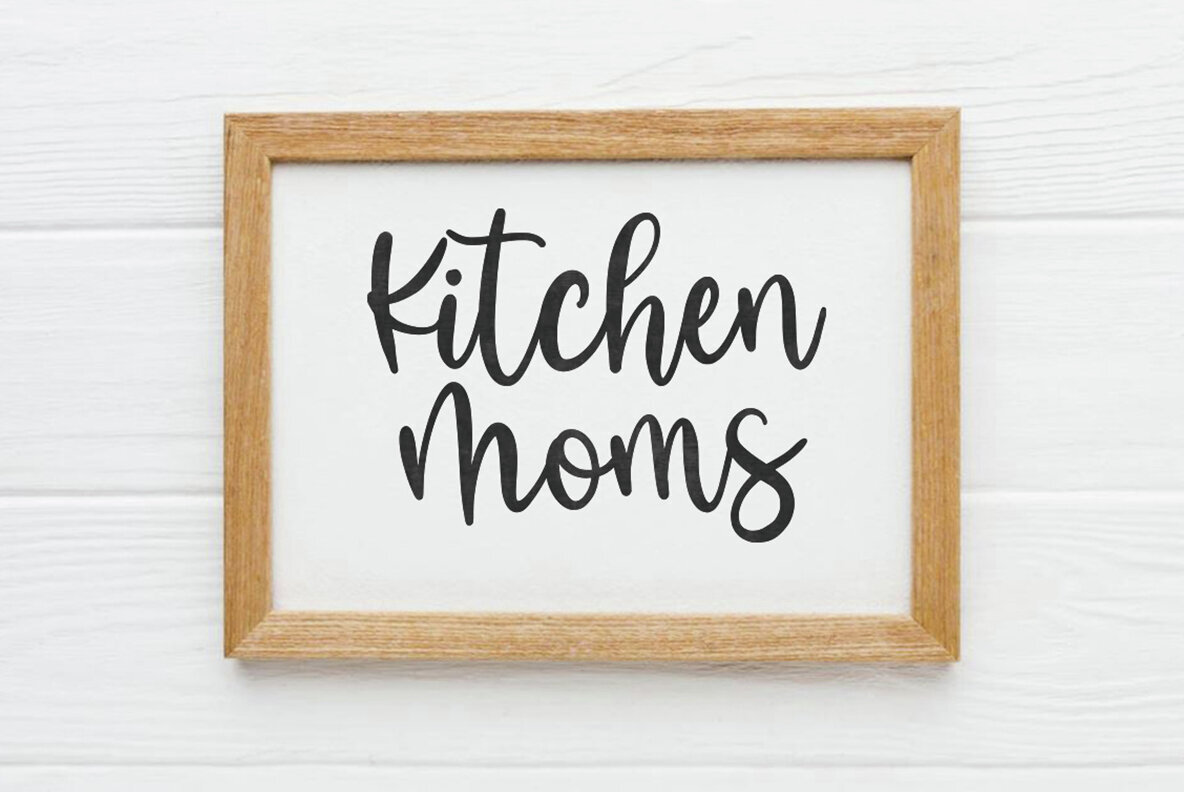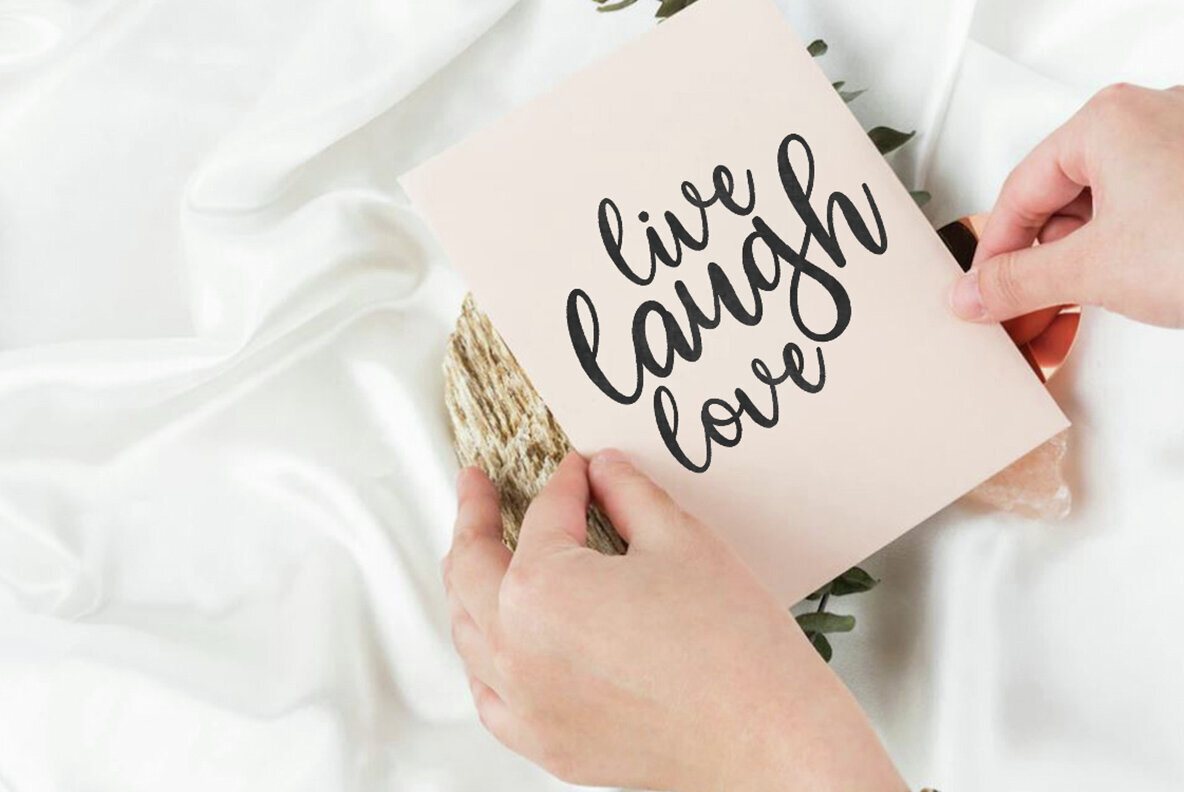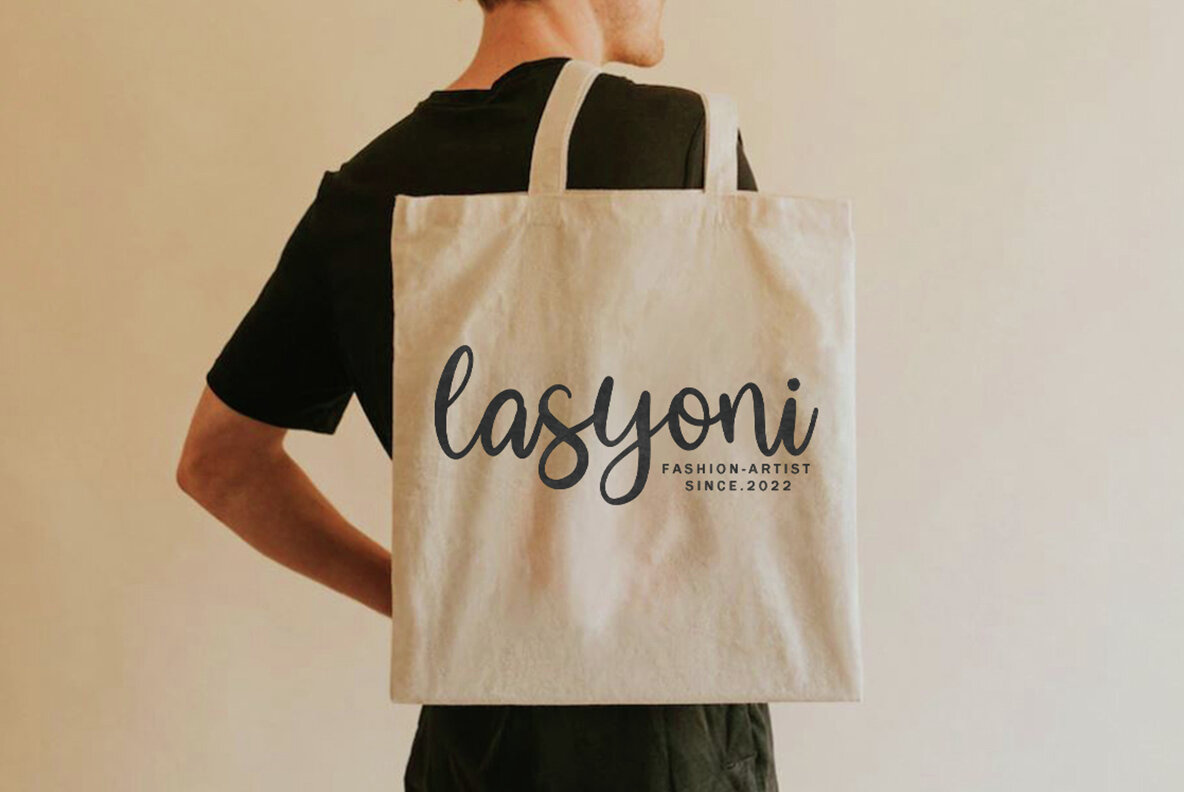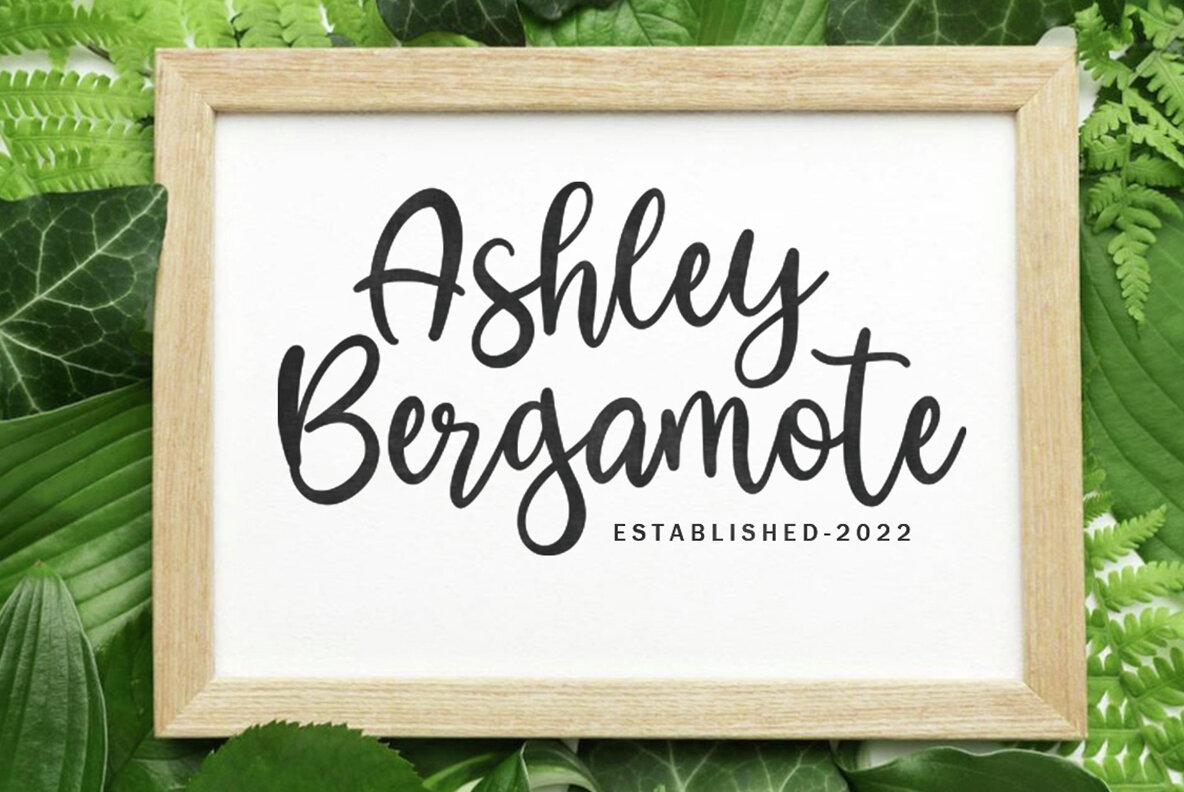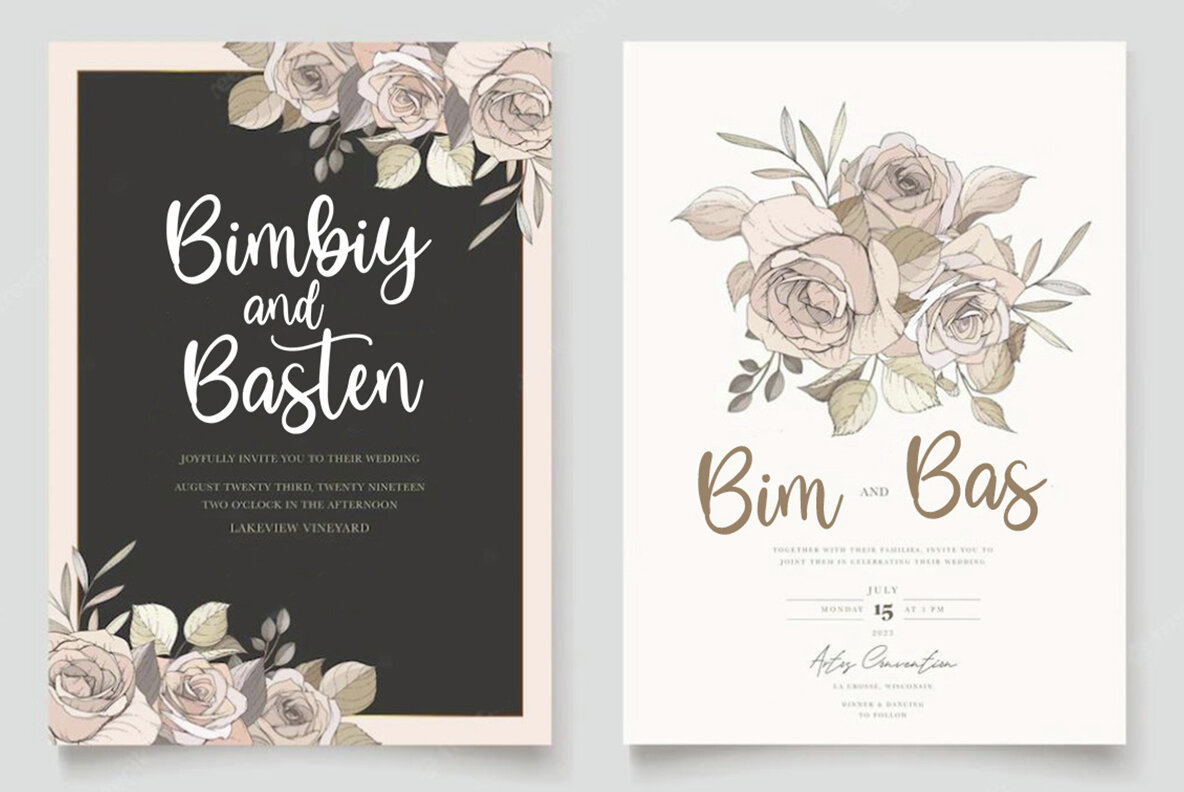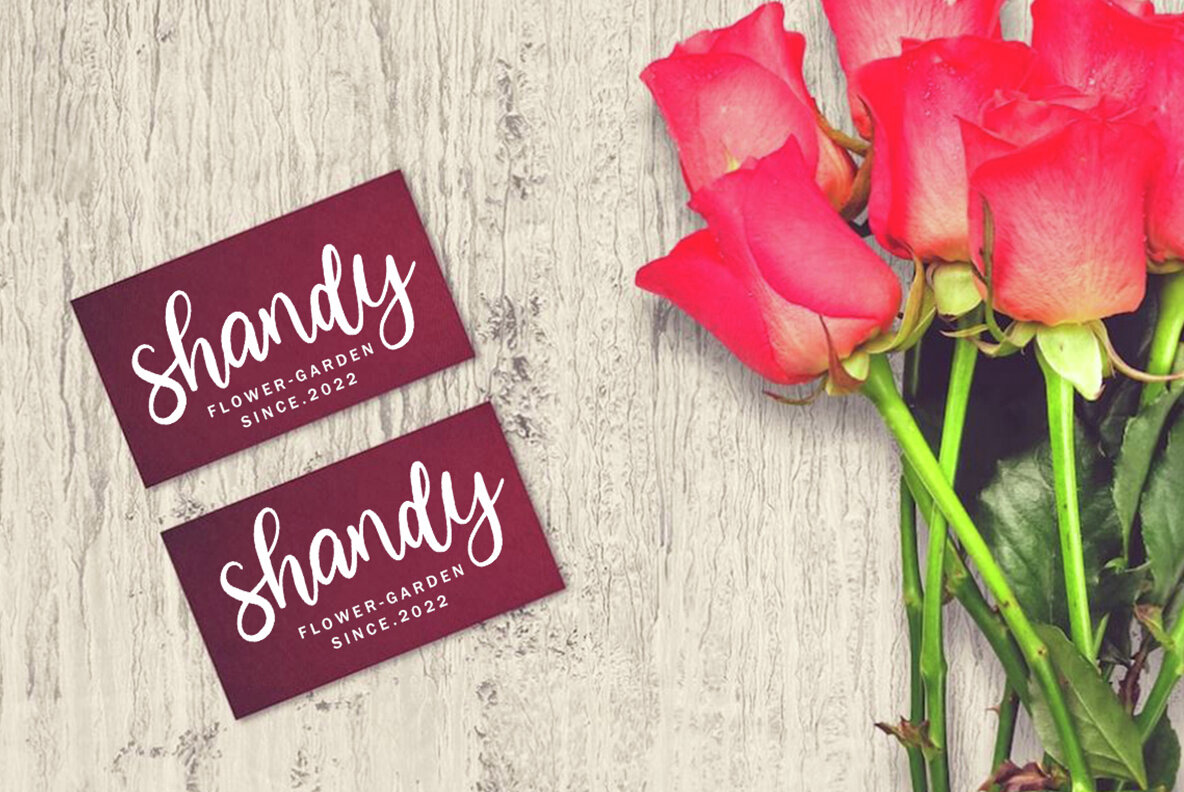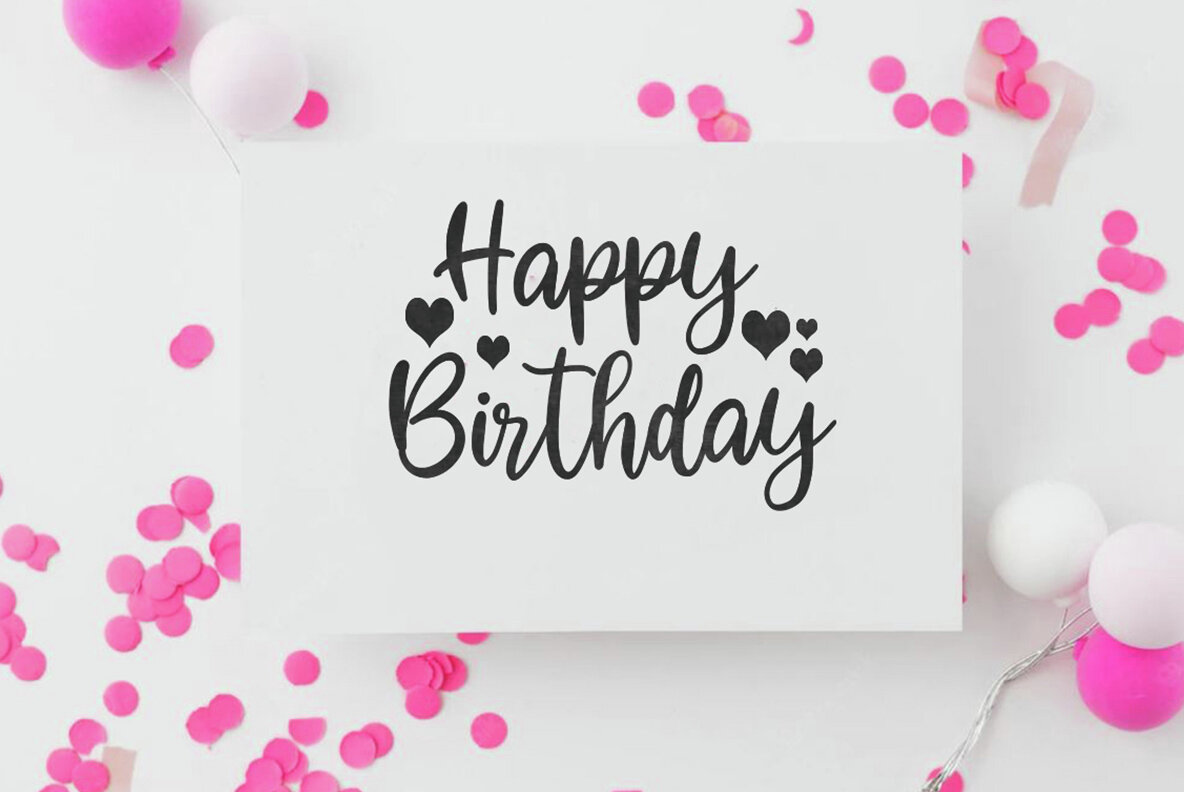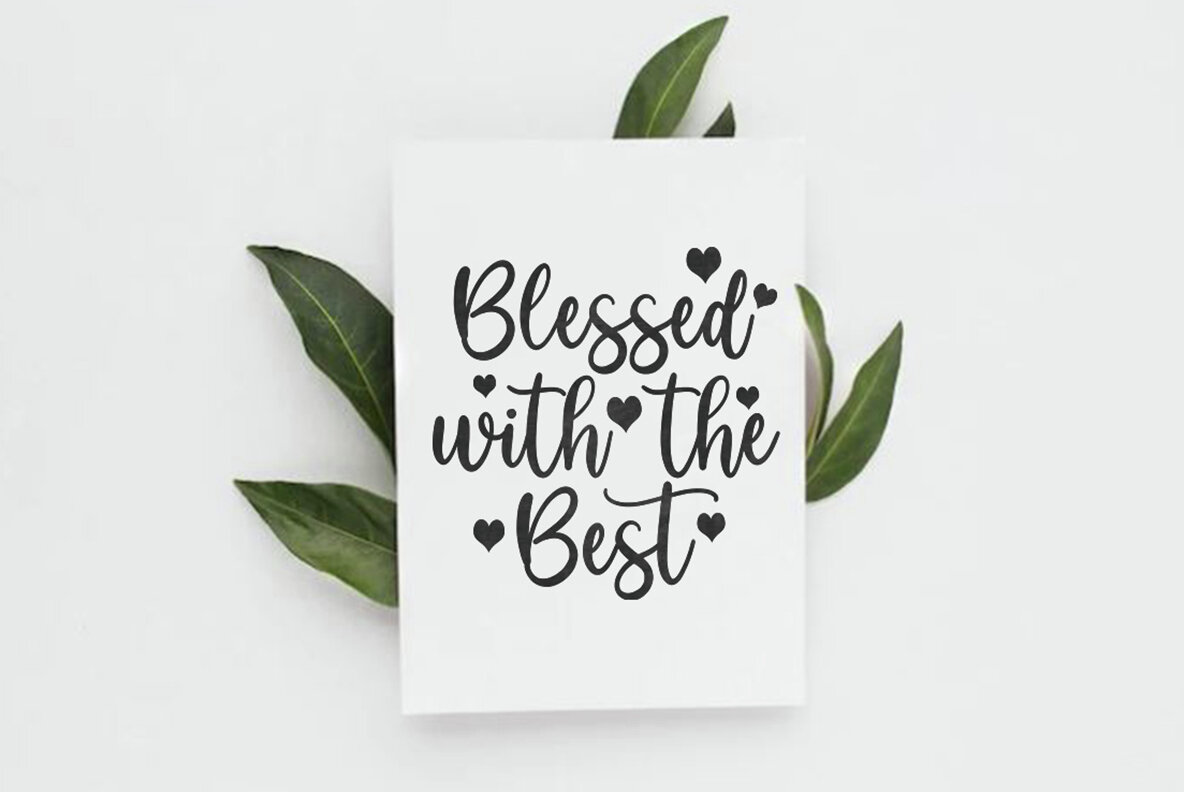
Blitanos Font
Blitanos
Blitanos Handwritten is a distinctive hand-brushed font characterized by its bold strokes and irregular baselines. Crafted with brush and ink, this font includes a full set of both uppercase and lowercase letters, along with alternates and ligatures. It is equipped with punctuation, numbers, and offers multilingual support, making it versatile for various design needs.
Ideal for projects that require a bold, handcrafted aesthetic, Blitanos Handwritten is perfect for watercolor designs, bold hand lettering, and numerous creative applications. Use it to enhance blog headers, create eye-catching posters, add charm to wedding elements, design unique t-shirts and apparel, or craft memorable invitations and handmade quotes. Its natural and expressive style is also well-suited for business cards, branding, merchandise, and book covers.